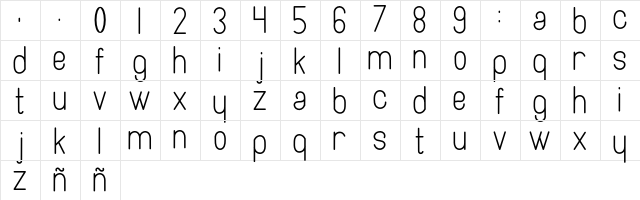
Artesana Medium
Design Context for Artesana Typeface
Artesana takes a measured approach to typography — its balanced proportions and neutral character make it a reliable workhorse for both digital and print work.